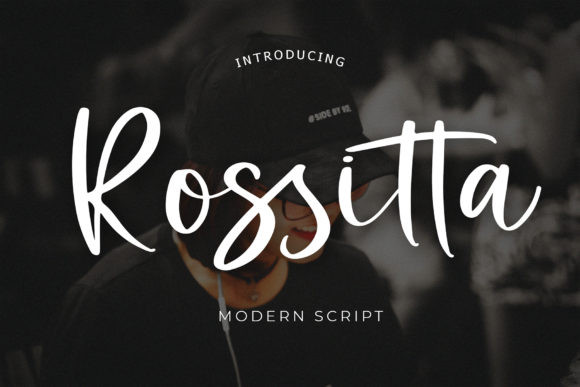
Rossitta Font
Rossitta is a modern script font. This is a beautiful combination of timeless elegance and authentic calligraphy. It will add an elegant and modern touch to your designs!